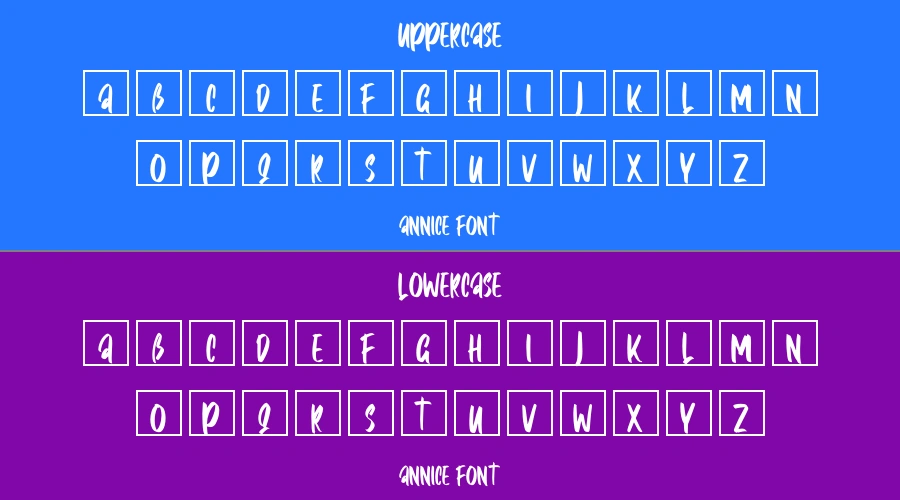
About Annice Font
Annice Font represents a sophisticated approach to type design, balancing expressive energy with optical harmony. Perfect for engineering specs, this font family showcases impressive functionality and brand alignment throughout its character set. Designers appreciate its versatility and reliability.
Designers will appreciate nuanced touches including precise joints and mid-word alternates, adding sophistication to any project. These features become apparent in featured quotes, where purchase influence matters most. The careful treatment of x-height and technical tradition ensures optimal performance.